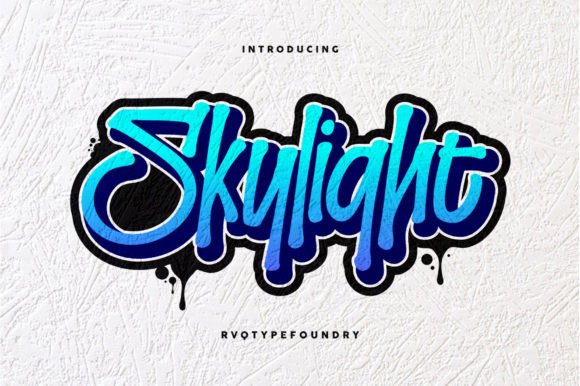
Welcome to the world of Skylight Font, a captivating display font bursting with personality! Unleash your creativity and make a bold statement with this graffiti-inspired font. Picture this: your designs transformed with jagged edges and intricate details that speak volumes. Skylight Font is not just a font; it's an artistic expression that breathes life into your projects.
Imagine your posters, logos, and digital designs captivating attention like never before. Skylight Font's edgy and stylish appearance adds a touch of rebellion and streetwise flair that commands attention. It's the perfect choice for those who want to make a statement and leave a lasting impression.
Let Skylight Font take your designs to new heights, graffiti-style. Its jagged edges dance across the page, creating a visual symphony. Its intricate details add depth and dimension, making your designs truly come alive. Whether it's a poster that demands attention or a logo that exudes confidence, Skylight Font delivers.
So, why settle for ordinary fonts when you can have the extraordinary? Embark on a creative journey with Skylight Font and discover a world of boundless possibilities. Let your designs shine with the urban grit and artistic flair that only this font can provide.